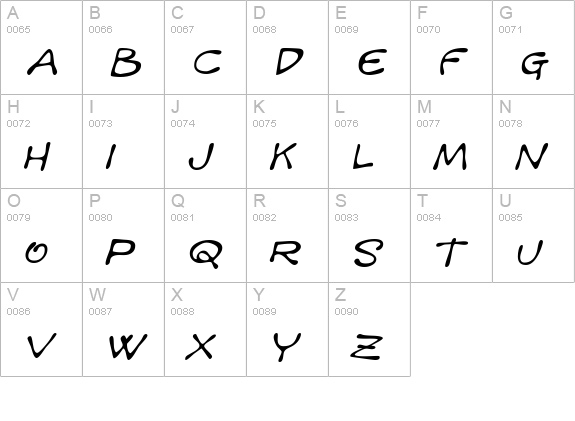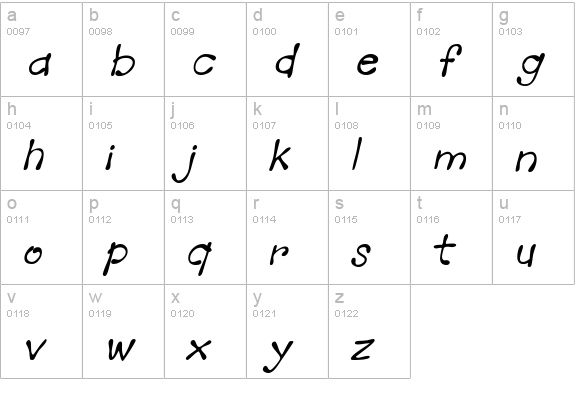
Mandingo BTN Oblique is a distinctive, italic variant in the Mandingo typeface family \xE2\x80\x94 well suited to design and typography projects.
Mandingo BTN Oblique font is a stunning and versatile typeface that exudes elegance and sophistication. With its unique and distinctive design, this font is perfect for adding a touch of class to any project. The oblique style adds a sleek and modern twist, making it ideal for both digital and print applications. With its clean lines and attention to detail, Mandingo BTN Oblique font is sure to catch the eye and leave a lasting impression. The subtle slant of the letters adds a sense of movement and dynamism, giving your text a sense of energy and vitality. One of the best things about Mandingo BTN Oblique font is that it is free. Yes, you read that right! This amazing font is freely available to download at FontsMarket.com. Whether you are a professional designer or a casual user, you can now enjoy the beauty and functionality of Mandingo BTN Oblique font without breaking the bank. So why wait? Enhance your designs with the captivating and stylish Mandingo BTN Oblique font. Download it for free today at FontsMarket.com and let your creativity shine.